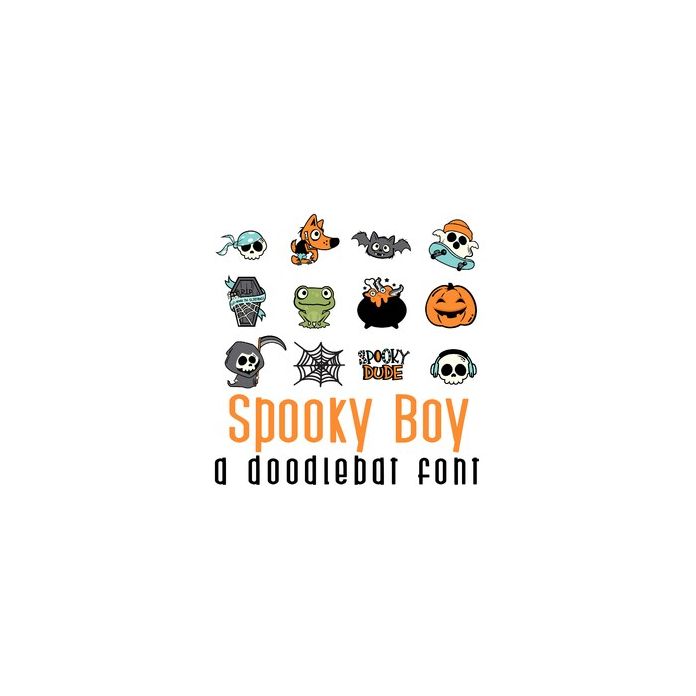
This adorable full-color doodlebat font features 26 boyish Halloween images perfect for parties, crafts, gifts, decor, card making, scrapbooking, planner stickers and more!